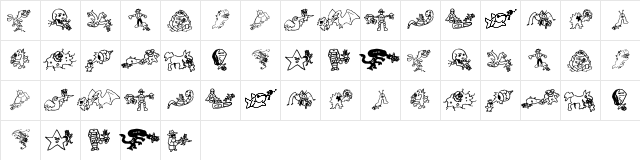
KillMeCraig Regular
Design Context for KillMeCraig Typeface
KillMeCraig is a composed and adaptable typeface that performs quietly and consistently across a wide range of design contexts.